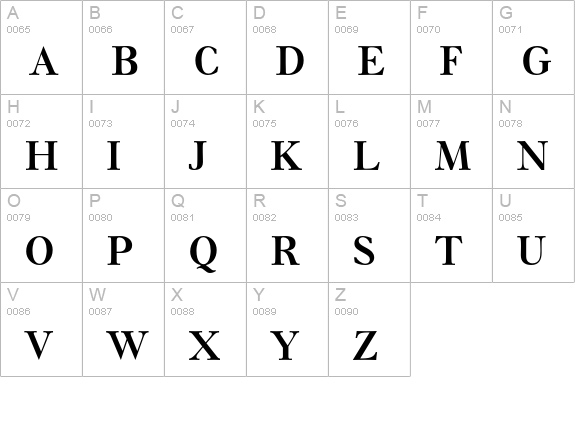
Else NPL Bold is a strong, high-contrast variant in the Else typeface family \xE2\x80\x94 well suited to headlines, attention-grabbing titles, and strong calls-to-action.
Introducing Else NPL Bold, a sophisticated and modern font that exudes confidence and elegance. With its bold and striking appearance, this typeface is perfect for making a statement in your designs. Whether you are creating a poster, logo, or branding materials, Else NPL Bold will surely catch the eye of your audience. The best part? Else NPL Bold is available for free download at FontsMarket.com. This means you can easily access this stunning font and use it in your projects without any hassle. Elevate your designs with the sleek and stylish aesthetic of Else NPL Bold today.